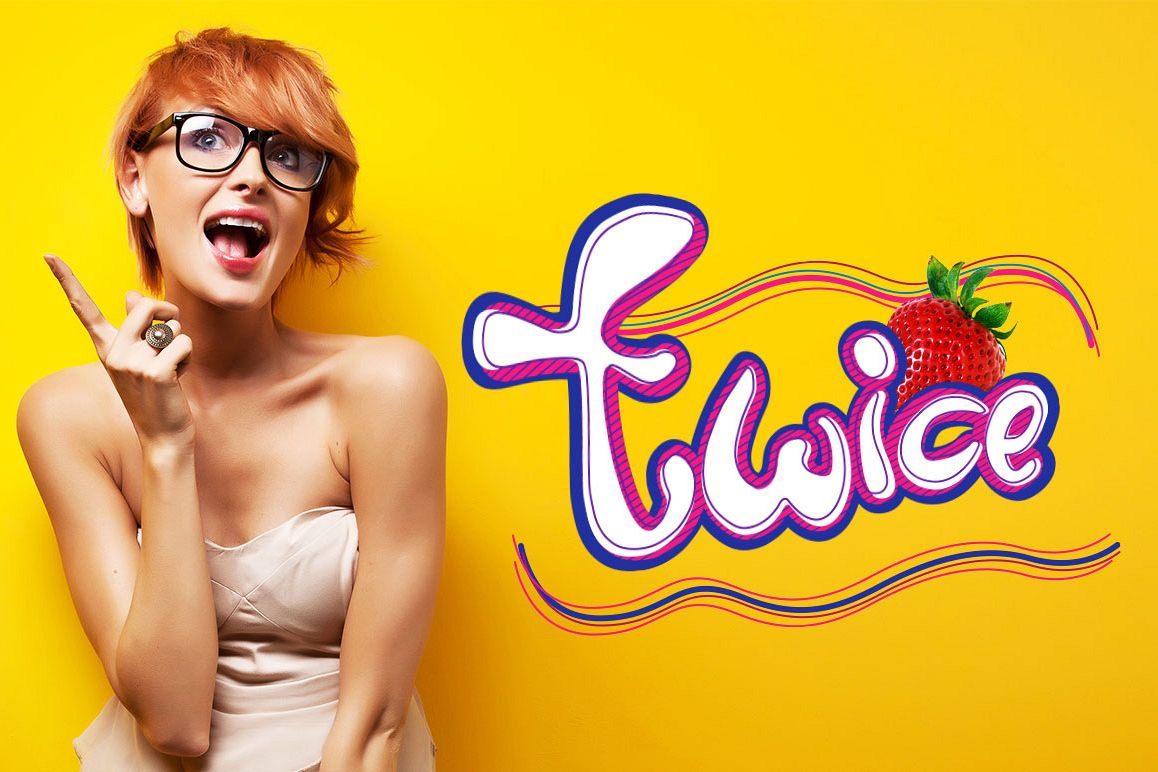
Twice Display Typeface
twice.
Introducing Twice inspired by bubble and some combinations handwritten letters. wild hand and imperfect flow give the natural looks.
One of my favorite special use fonts. Brilliant on T-Shirt designs.
Twice Display Typeface